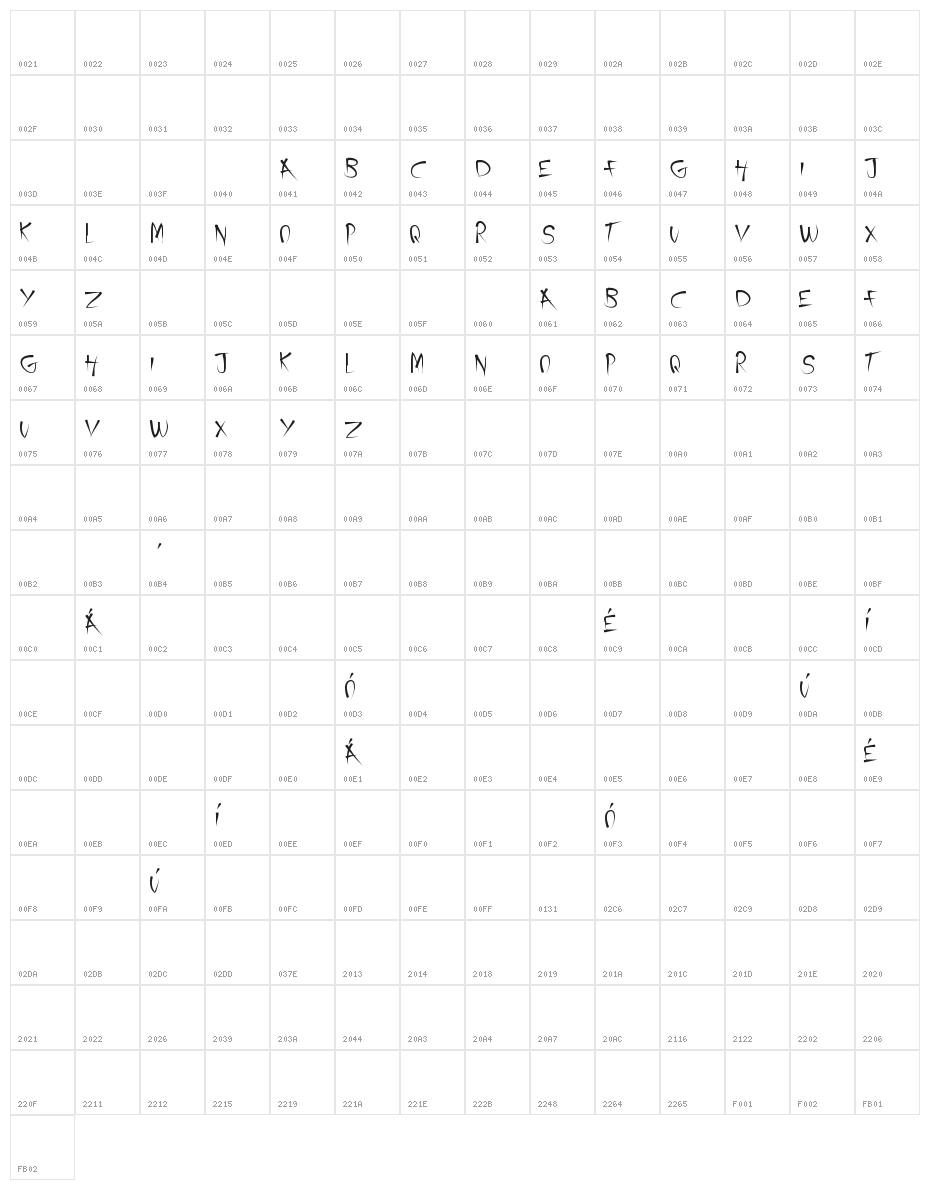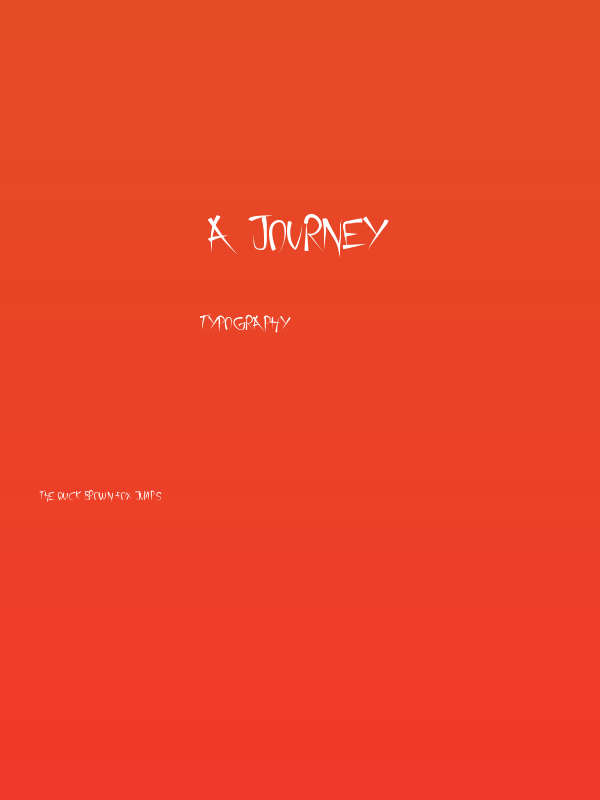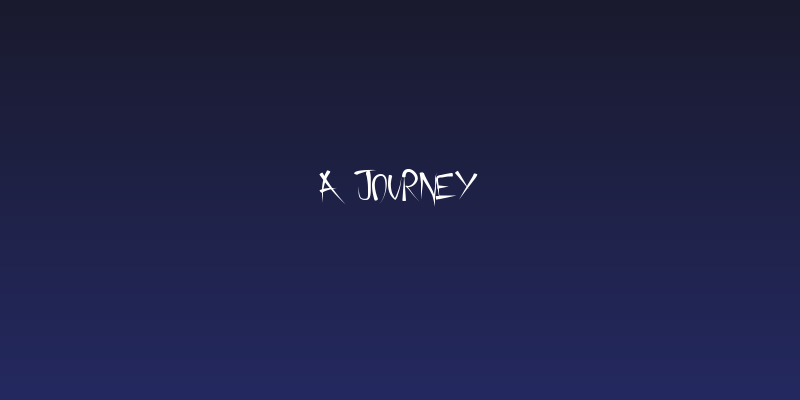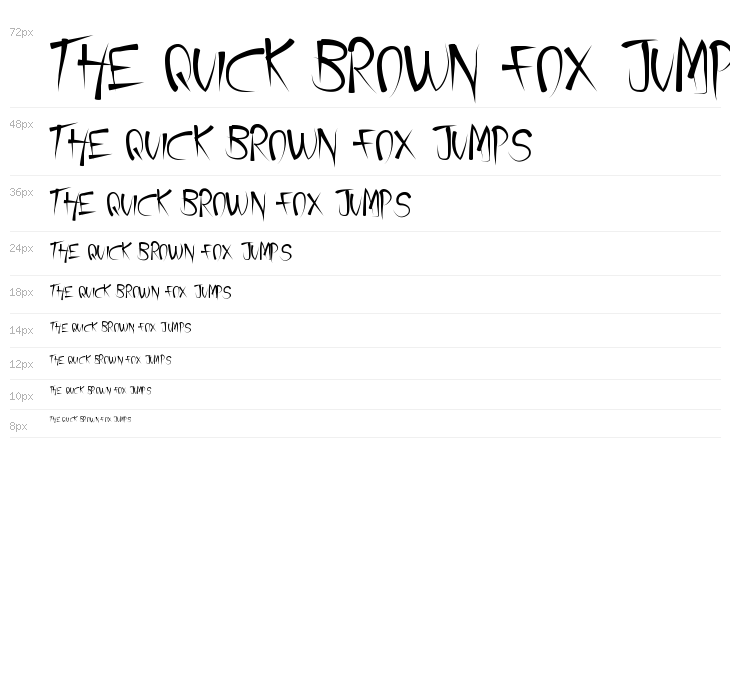
A Journey Font
A Journey Description
This font features a dynamic and edgy style, characterized by sharp, angular strokes and a slightly irregular baseline. The letters have a hand-drawn appearance, with varying thickness that adds a sense of movement and energy. The uppercase letters are bold and prominent, while the lowercase letters maintain a consistent style, enhancing the overall cohesiveness. The font's unique design makes it stand out, with each character exhibiting a distinct personality. The sharp edges and pointed terminals contribute to its modern and artistic flair, making it suitable for creative and expressive projects.
Overall StyleModern, Artistic
Proposed ProjectsIdeal for album covers, posters, branding for edgy or artistic products, and creative digital media.